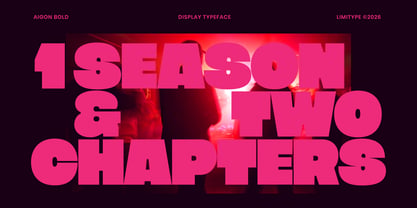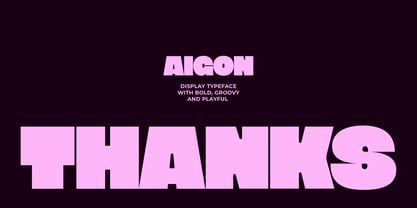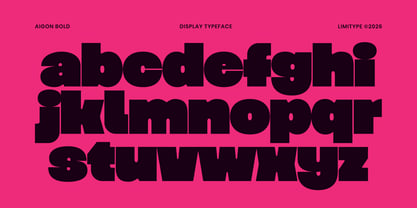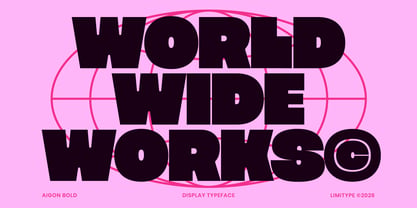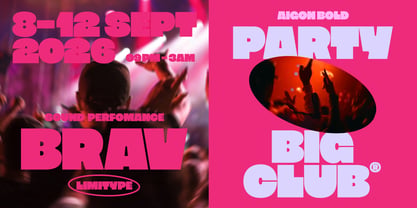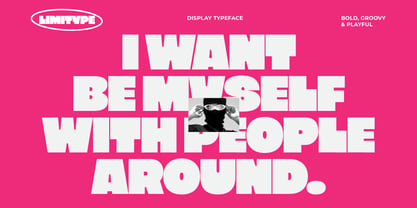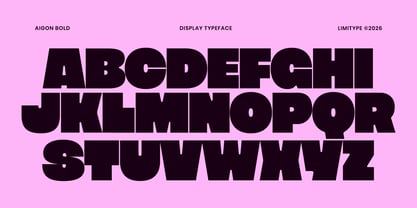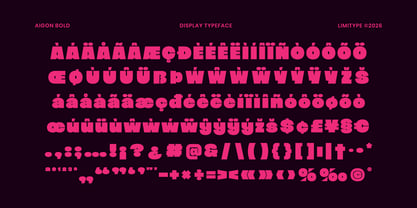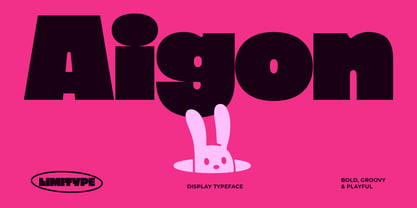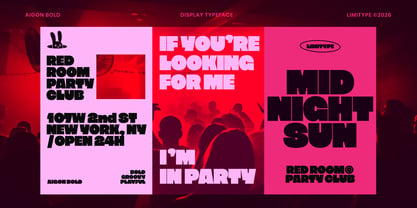
Aigon
by limitype
The Aigon Font Family was designed by Muhammad Muammar, Furqan Sudirman and published by limitype. Aigon contains 1 styles. More about this family
Aigon is a bold and playful display font featuring thick, heavy, and chunky letterforms with a fun and energetic groovy character. Its bold shapes, compact proportions, and distinctive cut in details create a unique and attention grabbing appearance with a strong visual impact. Perfect for headlines, posters, branding, logos, packaging, social media designs, advertising, and eye catching visual identities.
Designers: Muhammad Muammar, Furqan Sudirman
Foundry: limitype